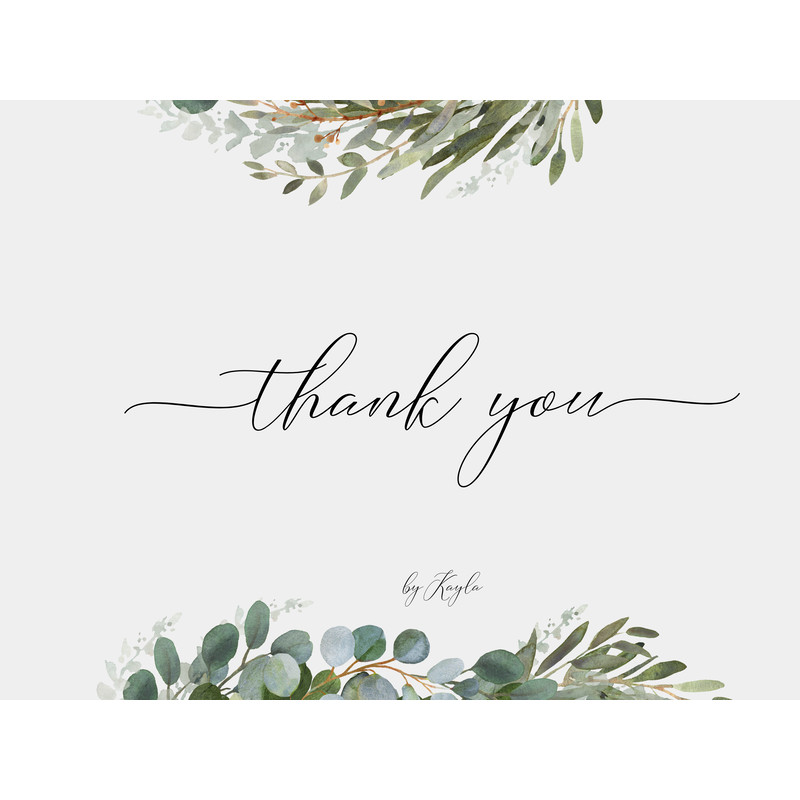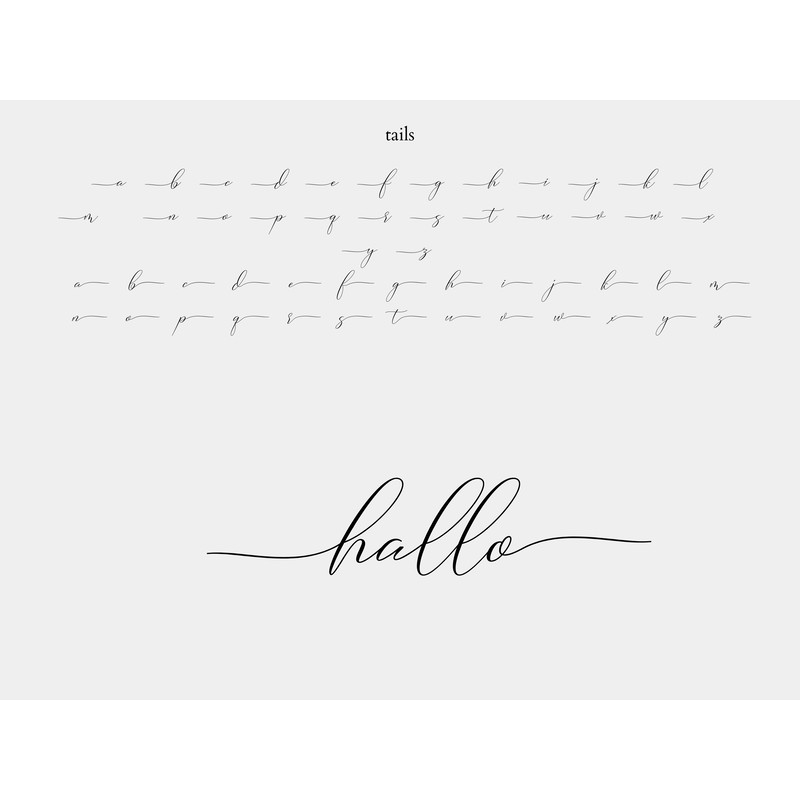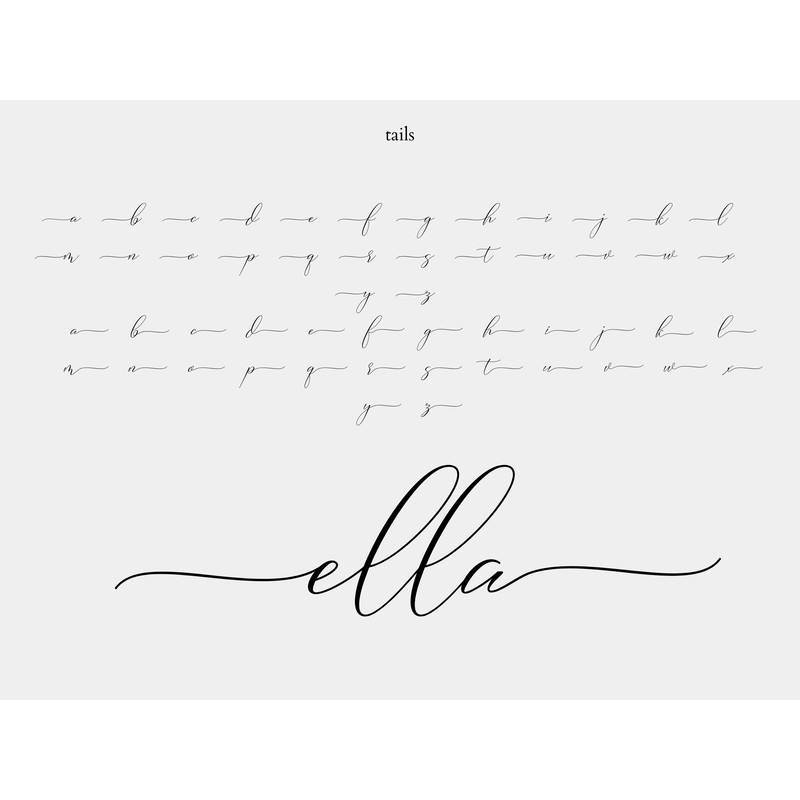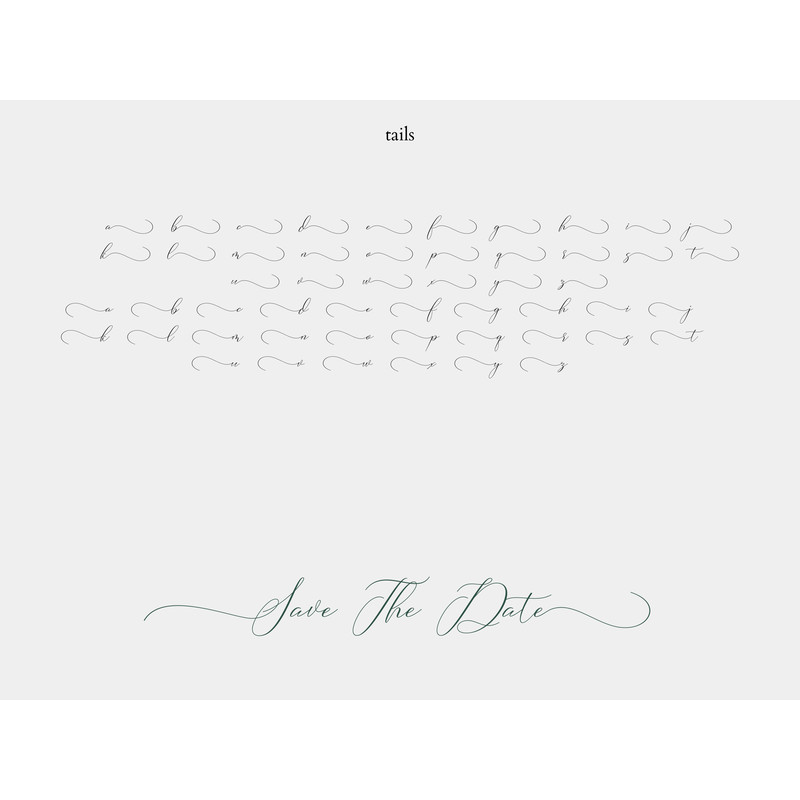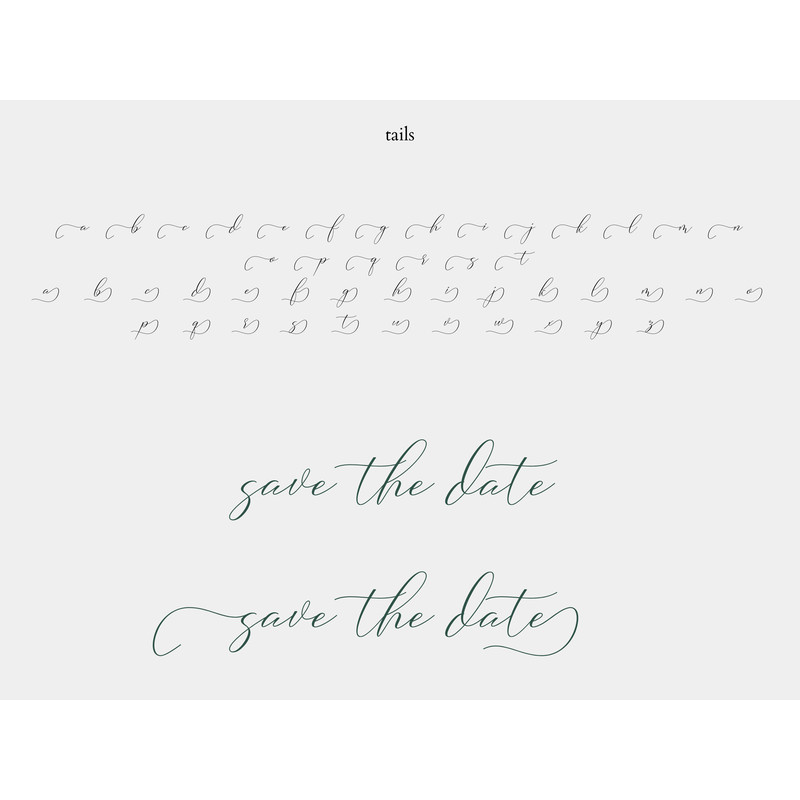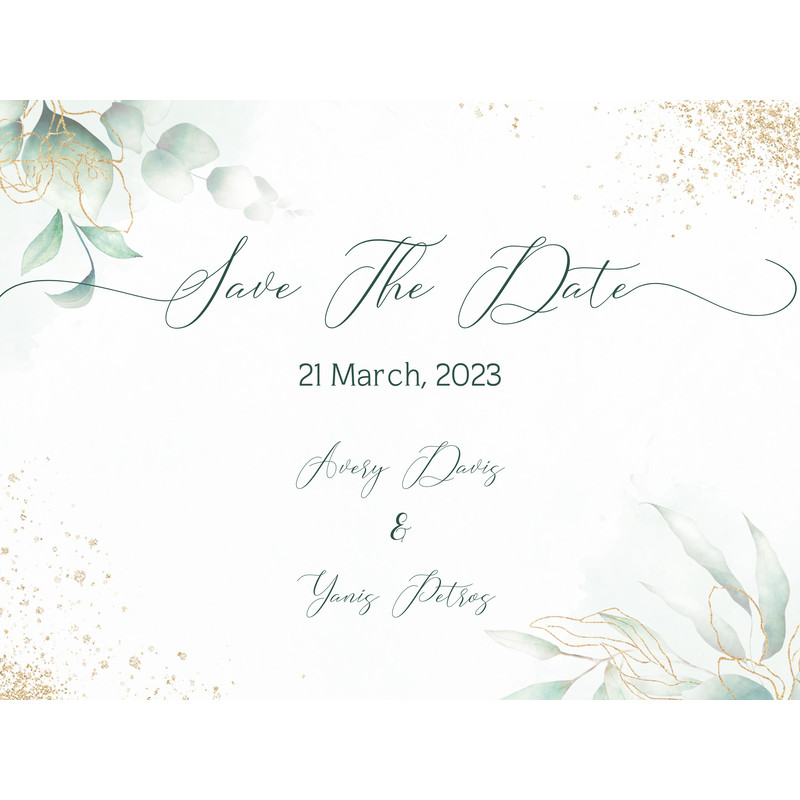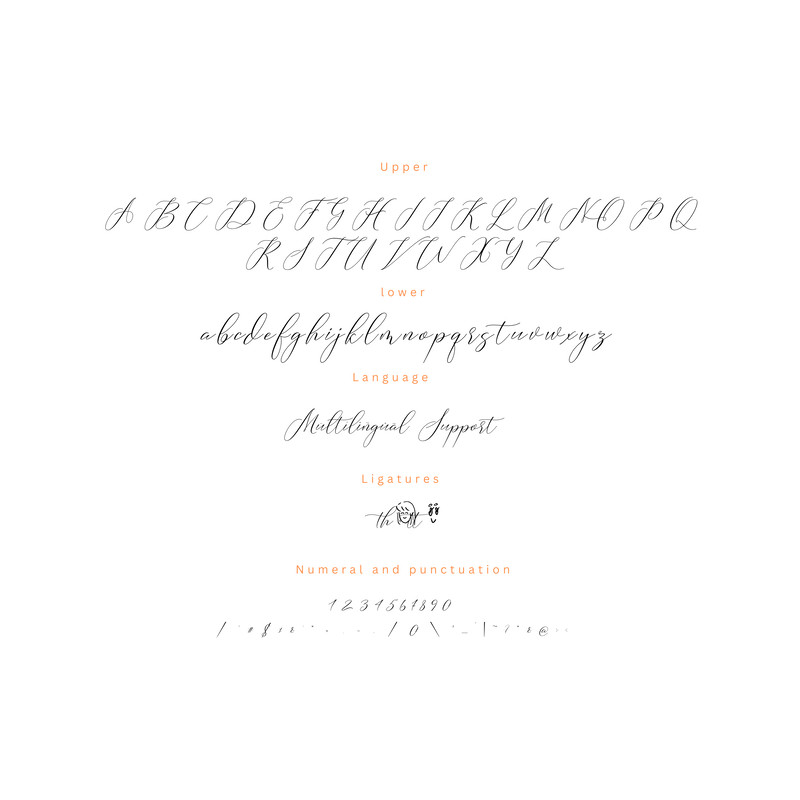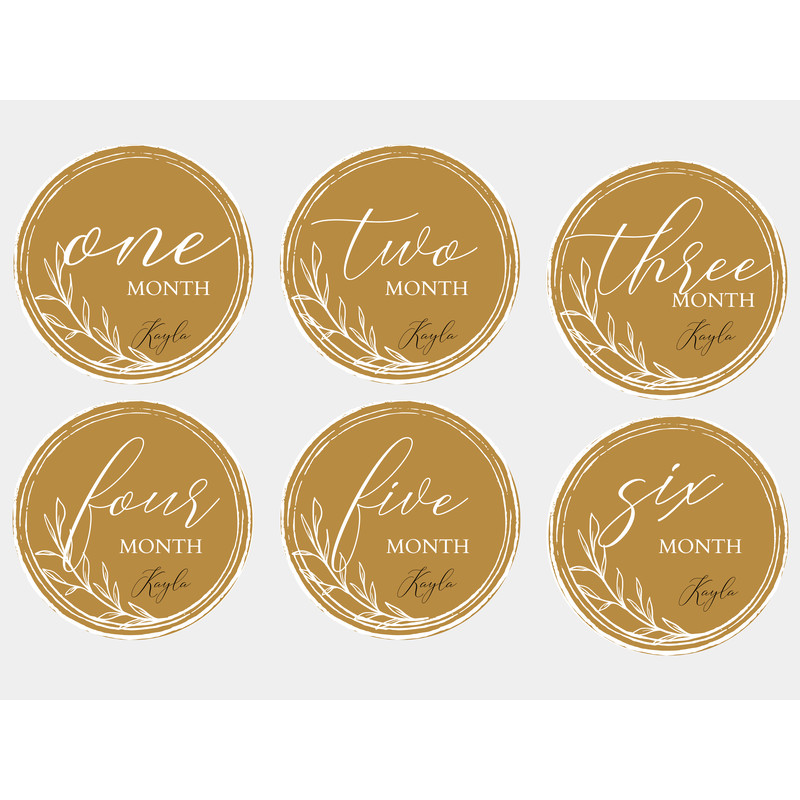
Introducing romantic and delicate handwritten font, featuring hearts as ornaments. Dainty and joyful, this font will be ideal for writing wedding invitations, cards or any other design that may need a romantic, personalized touch!
Features:
- Basic Latin A-Z and a-z
- Numbers
- Symbols
- Stylistic Alternate
- Swashes
- Multilingual support